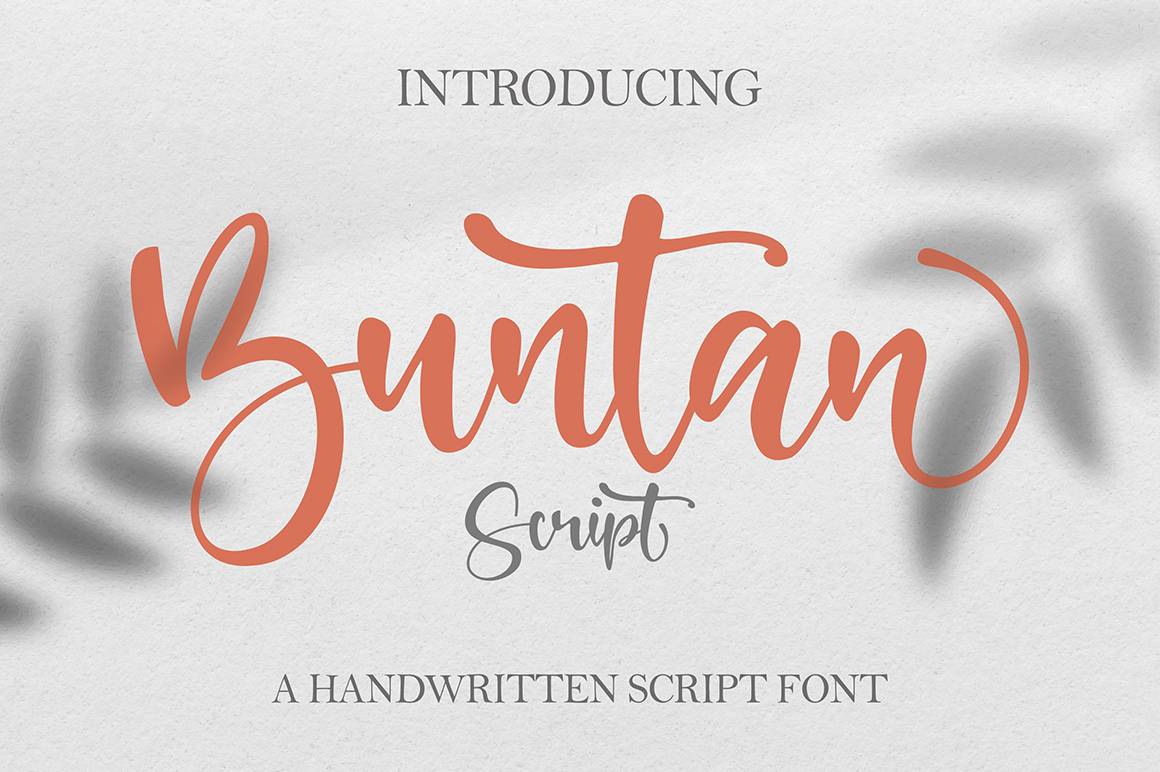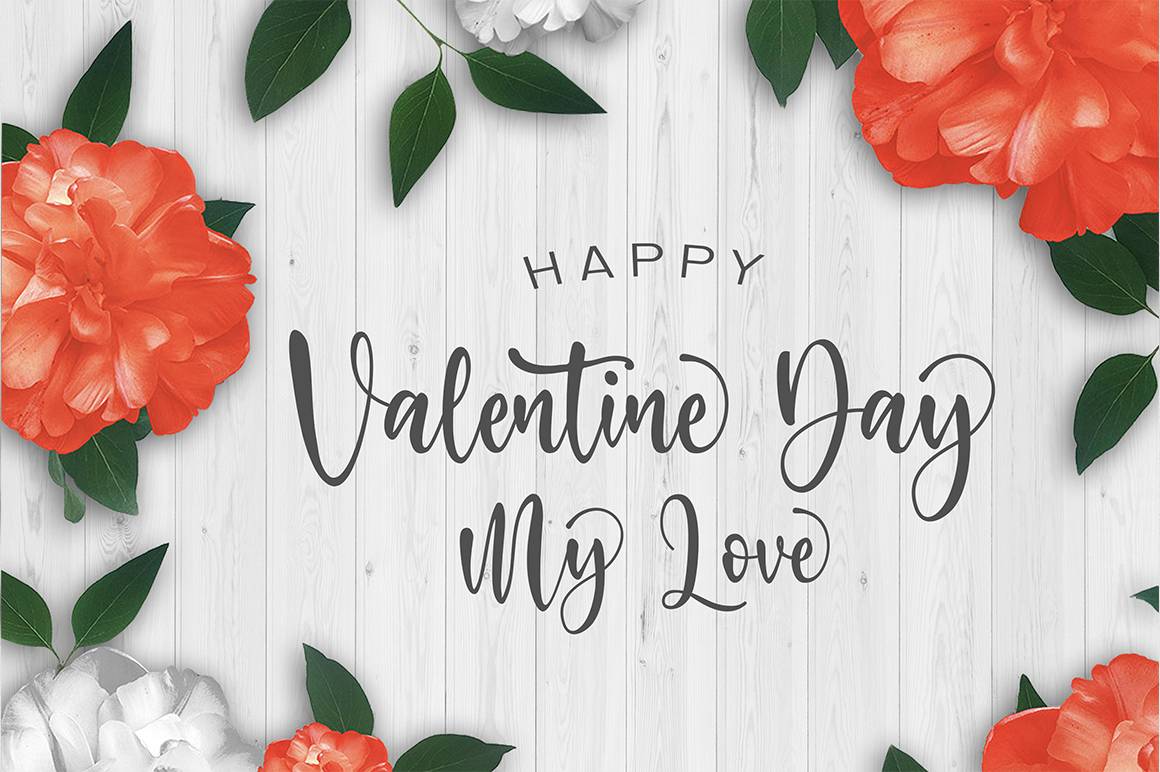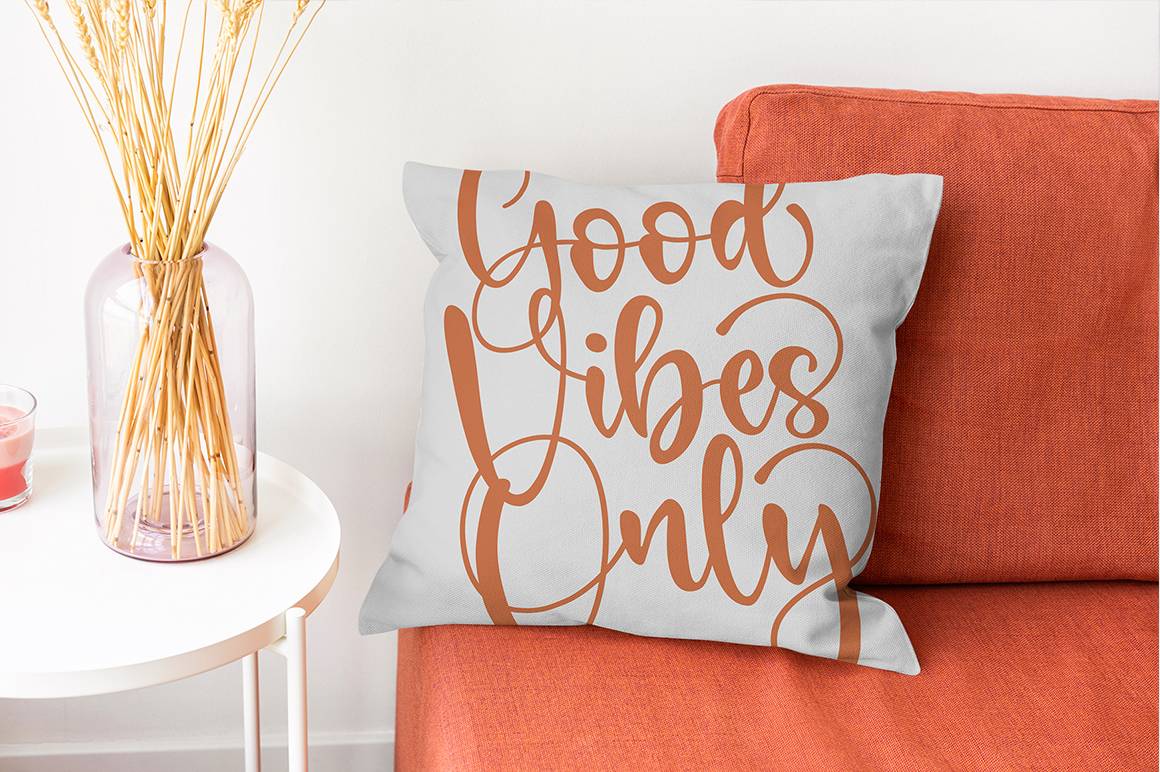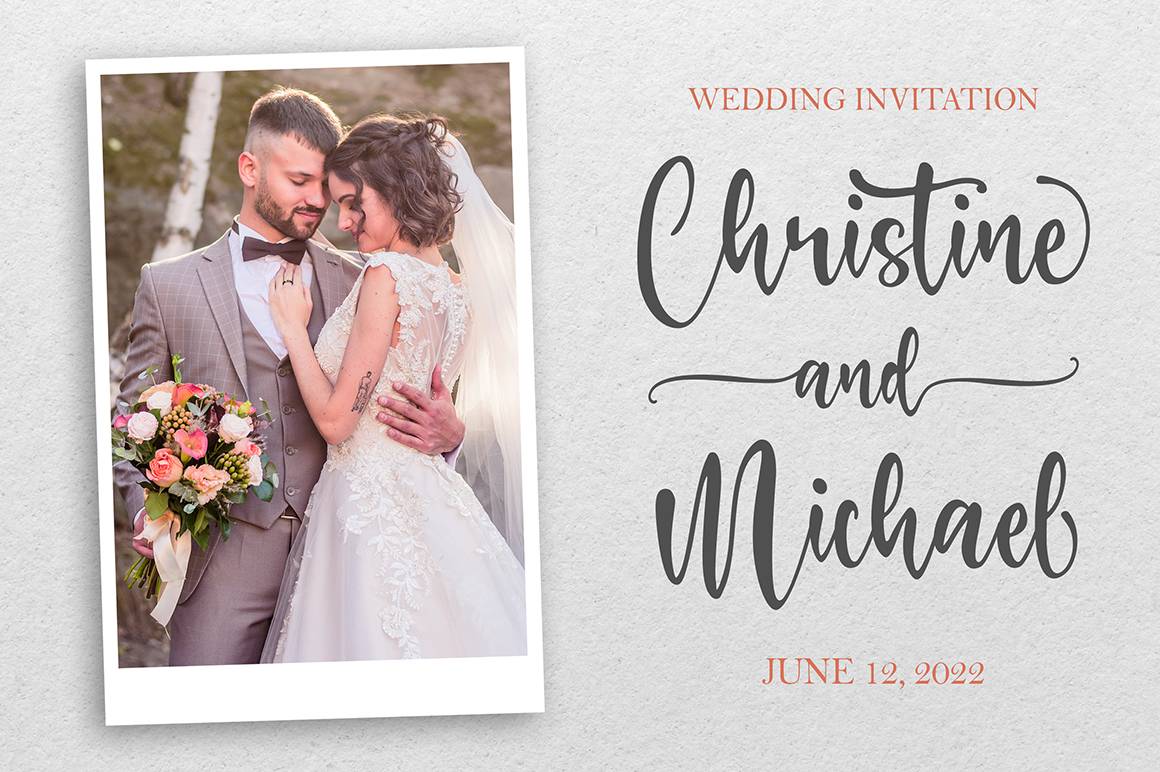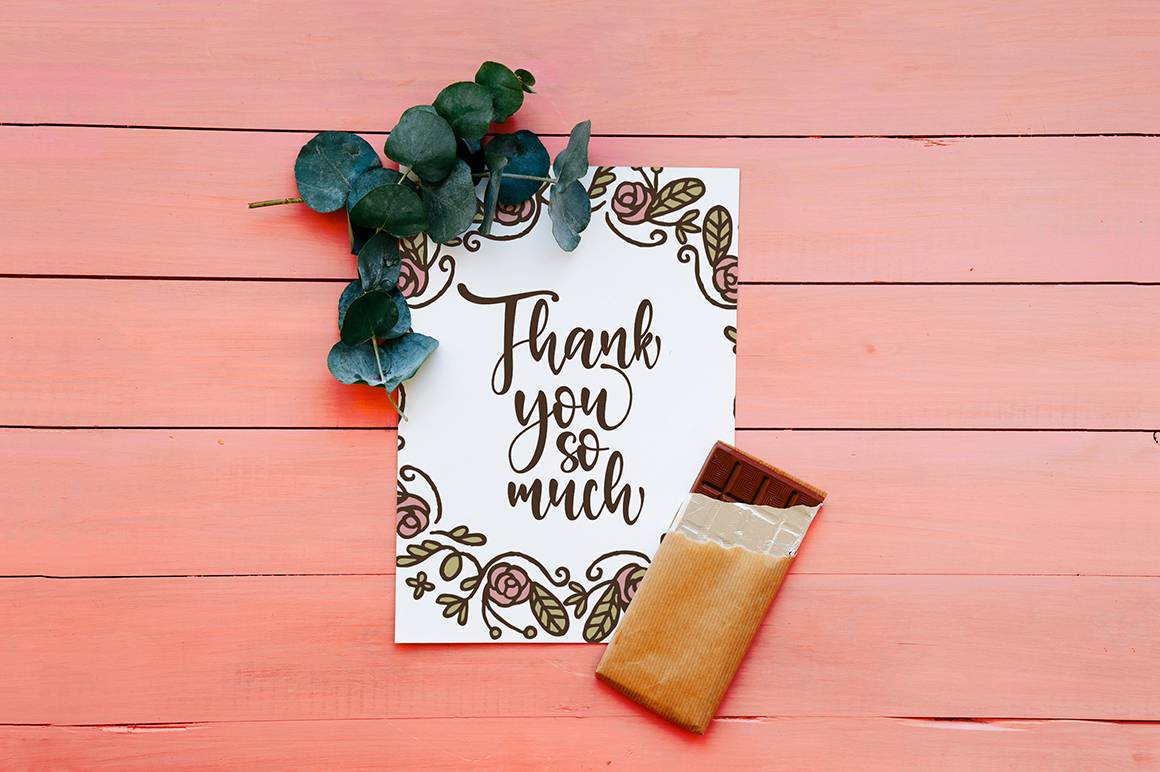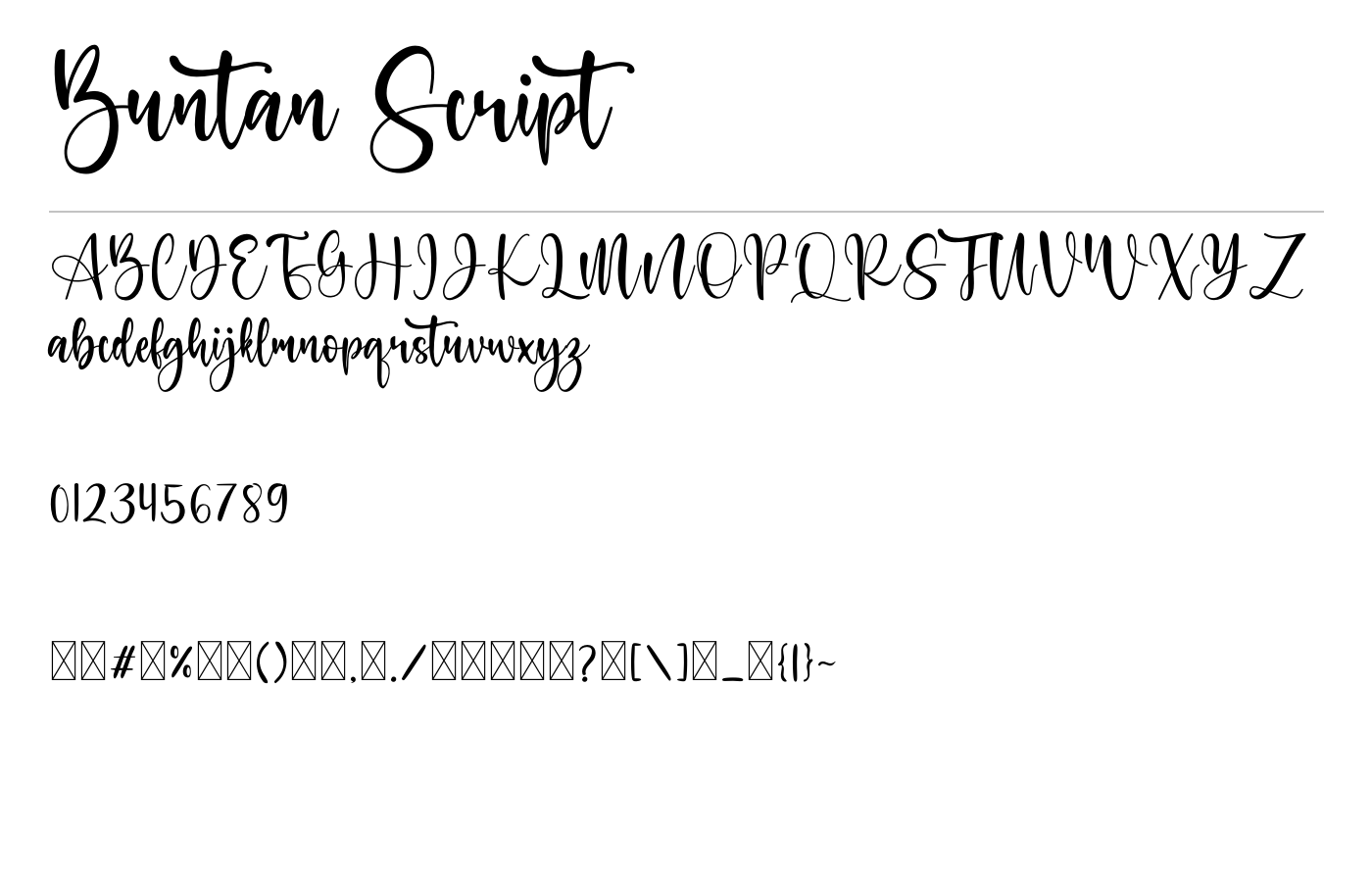
Buntan Script is a lively and elegant handwritten script font characterized by its smooth, flowing strokes and charmingly playful letterforms. Its light to medium weight and dynamic curves create a personal, artistic feel, making it ideal for creative branding, invitations, and stylish headlines where a touch of personality and warmth is desired. This font works beautifully in designs that seek to convey friendliness and sophistication with an informal, handcrafted look.
Buntan Script Font
About Buntan Script Font